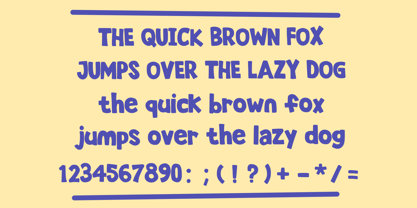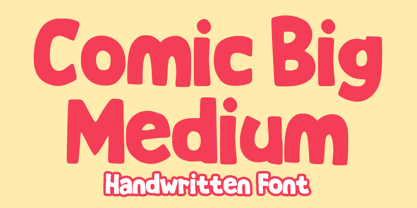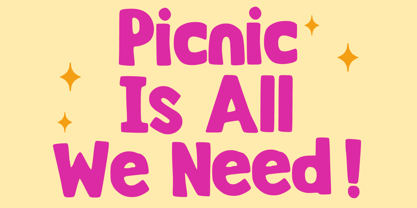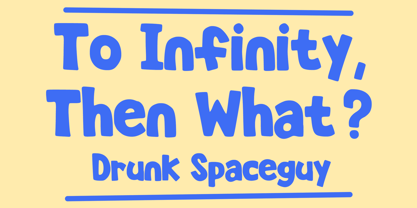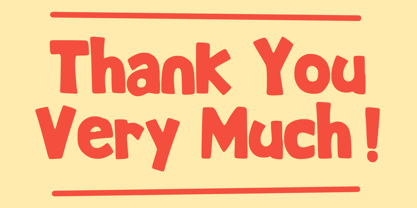
Comic Big Medium
The Comic Big Medium Font Family was designed by Gabriel Valentinus and published by Mvmet. Comic Big Medium contains 1 styles. More about this family
Comic Big Medium is a fun, bold cartoon display font for everything! Perfect for infusing a joyful spark in clothing designs or kids’ books, spicing up party decorations, or adding a heartwarming touch to greeting cards, this font is your passport to a more whimsical design experience. From stickers to posters, banners to just about anything requiring a stroke of fun, unleash the possibilities with Comic Big Medium. Experience delightful chills as its cheerful vibes help your fabulous designs come to life!